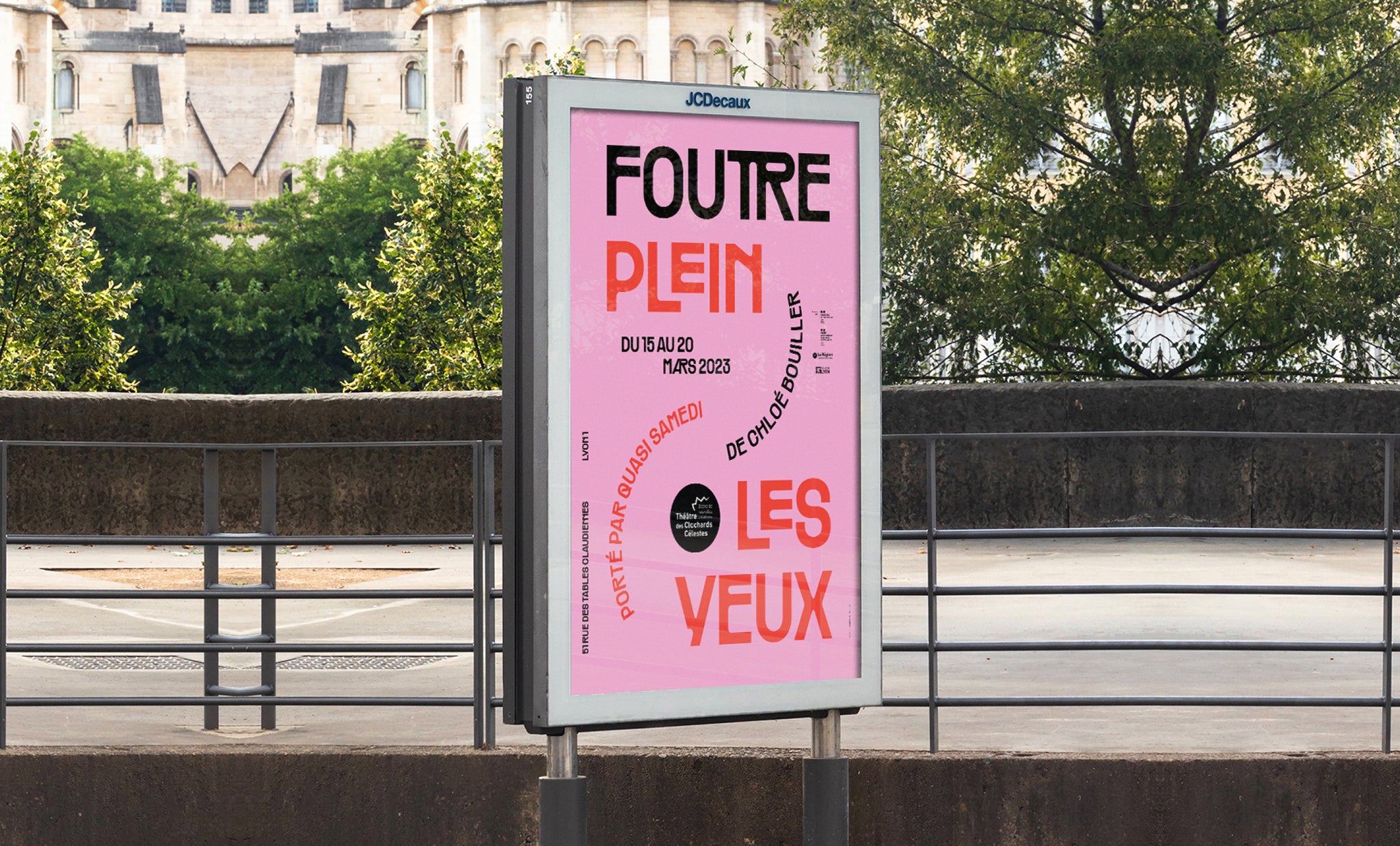
Les Clochards Célestes is a neighborhood theater in Lyon.
It showcases new creations which particularly puts emphasis on emerging women’s projects from France and elsewhere.
For this season, we brought a colorful, lively and illustrative aesthetic. We wanted to convey a free and spontaneous spirit.
We therefore joined forces with the artist Gaëlle Loth who was in charge of the illustrations. A communication where the bold Räder font balances the strength of Gaëlle Loth's drawings.